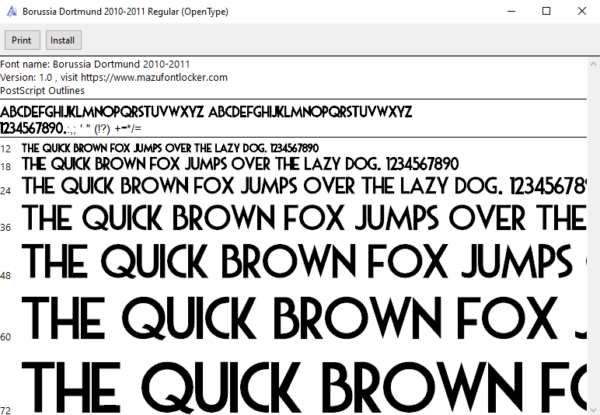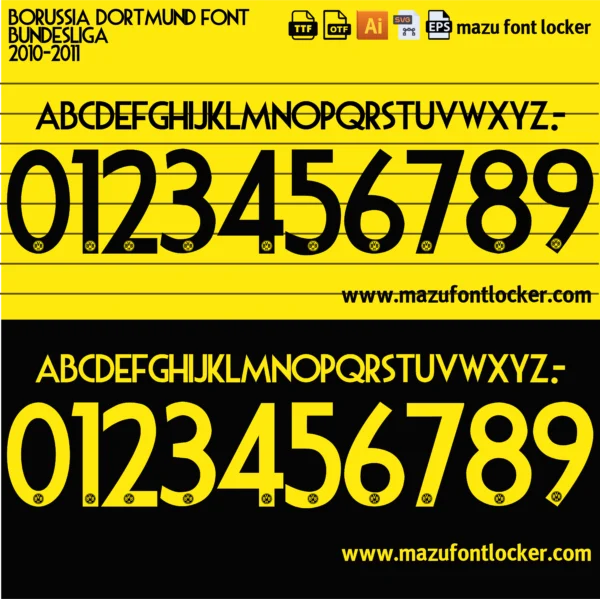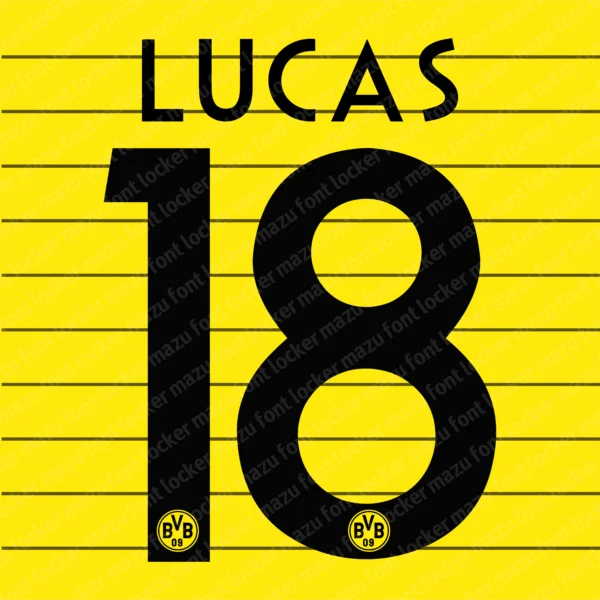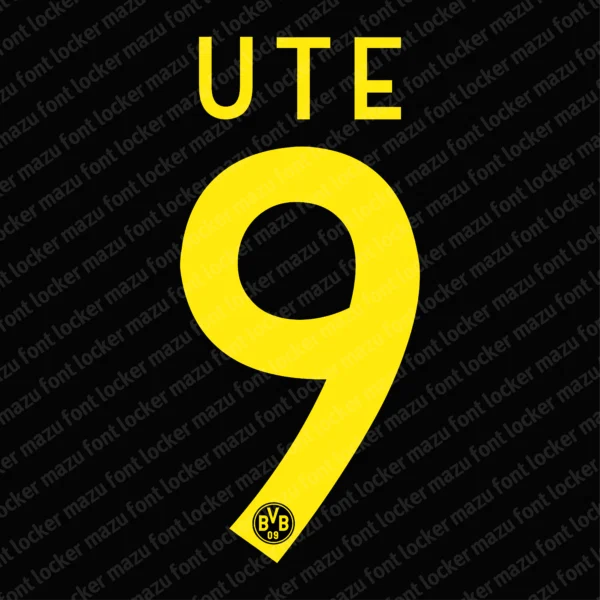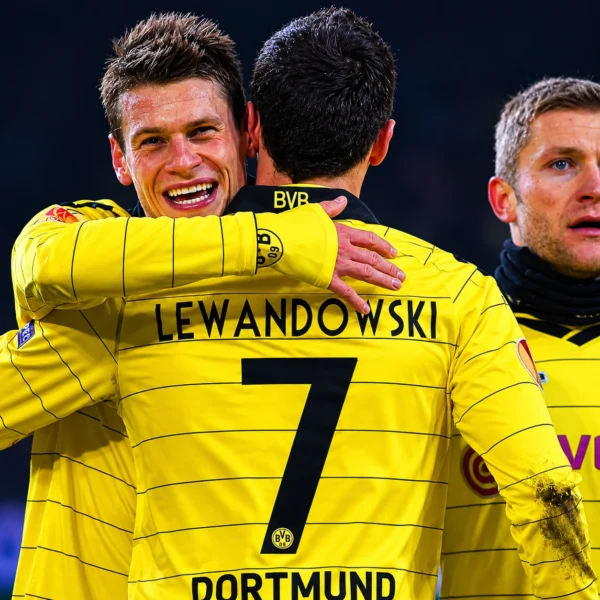
Borussia Dortmund 2010-2011 Font Vector – Explosive Legendary Schwarzgelben Masterpiece
Download the Borussia Dortmund 2010-2011 Font Vector and powerfully recreate the bold, explosive, and ultra-intense match-style lettering worn by the young German giants during their legendary 2010-2011 season. This font captures the dynamic and commanding typography that embodies the passionate black-and-yellow Die Schwarzgelben warrior spirit, delivering unmatched authenticity, relentless power, and iconic Klopp-era dominance for premium jersey mockups and football designs.
Borussia Dortmund 2010-2011 Font Vector – Authentic Die Schwarzgelben Typeface
Download the Borussia Dortmund 2010-2011 Font Vector and powerfully recreate the bold and dynamic match-style lettering worn by the Borussia Dortmund squad during their iconic 2010-2011 season. This font captures the strong, aggressive, and commanding typography that embodies the passionate black-and-yellow Die Schwarzgelben spirit, delivering unmatched authenticity for premium jersey mockups and football designs.
Why Choose Borussia Dortmund 2010-2011 Font
This font stands out because of its sharp details and legendary club identity. Every letter and number is crafted to match the exact style used on the players’ shirts during the historic 2010-2011 Bundesliga winning season. Whether you are making realistic retro shirt templates or high-energy football content, the Borussia Dortmund 2010-2011 Font gives your designs that authentic Die Schwarzgelben fire.
The letterforms in the Borussia Dortmund 2010-2011 Font are tall, bold, and highly impactful. The strokes have a strong and aggressive weight that looks powerful on the back of jerseys while maintaining excellent clarity and presence.
The numerals use sharp curves and bold edges, giving them a confident and commanding appearance. This design ensures great legibility whether used in large print formats, digital mockups, or video content.
• Full uppercase A–Z and numbers 0–9 in authentic Borussia Dortmund 2010-2011 style
• Special BVB crest glyph for accurate shirt number detailing
• Create highly realistic Borussia Dortmund 2010-2011 jersey mockups with accurate lettering
• Design stunning retro matchday posters, score graphics, and squad announcements
• Produce custom Die Schwarzgelben merchandise with a classic and energetic aesthetic
Borussia Dortmund 2010-2011 Season
During the unforgettable 2010-2011 season, Borussia Dortmund, proudly known as Die Schwarzgelben, delivered a sensational and historic campaign under the revolutionary leadership of young manager Jürgen Klopp. After years of struggle, this energetic young squad marked the beginning of a new golden era with their fearless high-pressing style. Featuring explosive rising stars like Mario Götze, Shinji Kagawa, Robert Lewandowski, Nuri Şahin, and captain Sebastian Kehl, the club ended their 9-year Bundesliga title drought by clinching the German championship in thrilling and dominant fashion — finishing top of the table with an impressive 75 points.